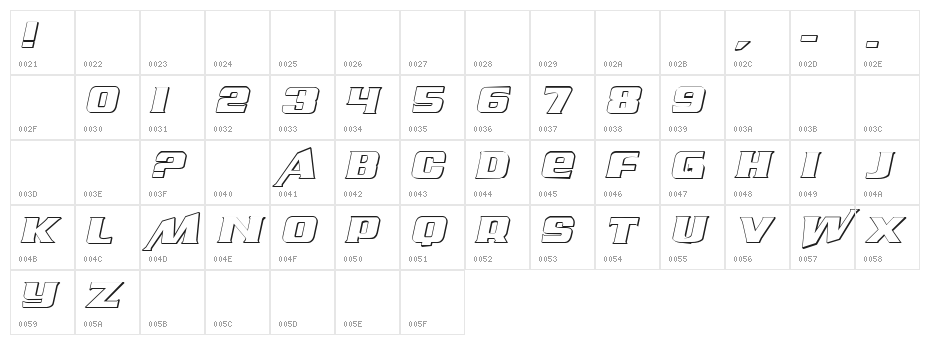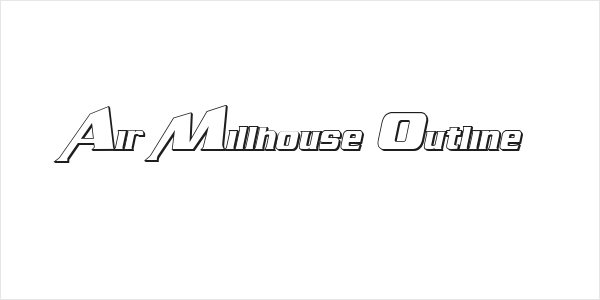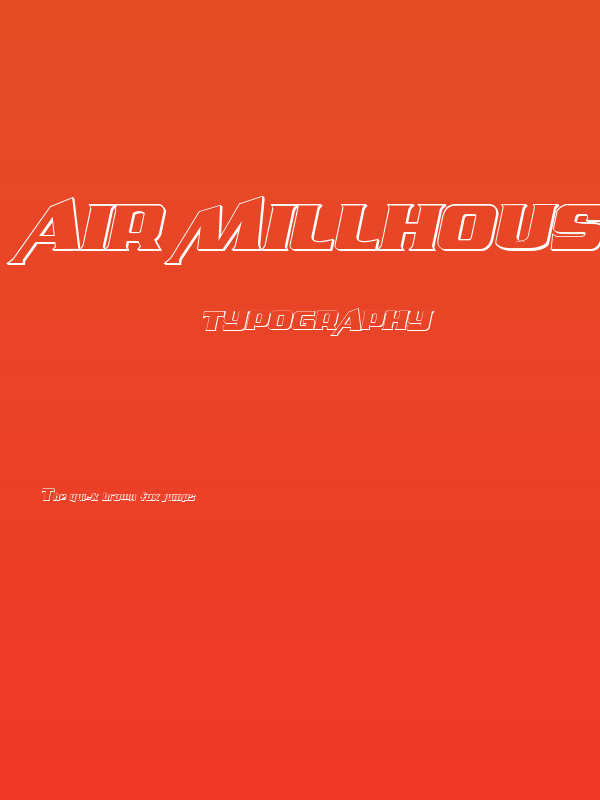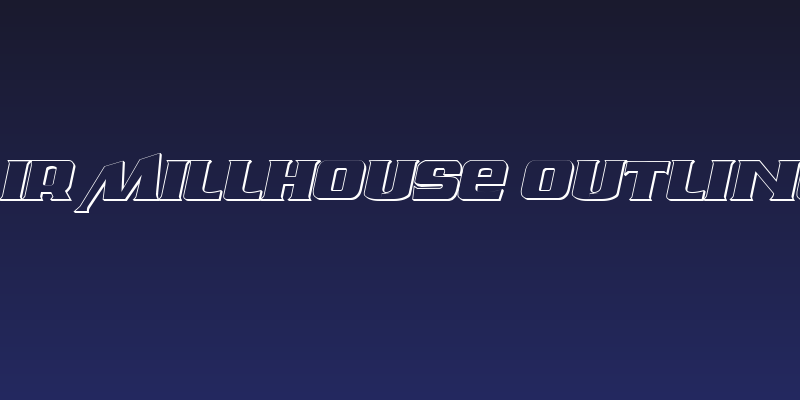
Air Millhouse Outline Font
Air Millhouse Outline Description
This font features a bold, outlined style with a modern and dynamic appearance. The uppercase letters have a distinct slant, giving them a sense of motion and energy. The lowercase letters maintain this energetic style, with consistent line thickness throughout. The numbers are equally bold and outlined, ensuring they stand out prominently. Special characters are designed to match the overall aesthetic, providing a cohesive look across all glyphs. The font's outline design makes it ideal for creating eye-catching headlines and titles.
| Proposed Projects | Ideal for sports branding, dynamic posters, modern logos, and eye-catching headlines. |